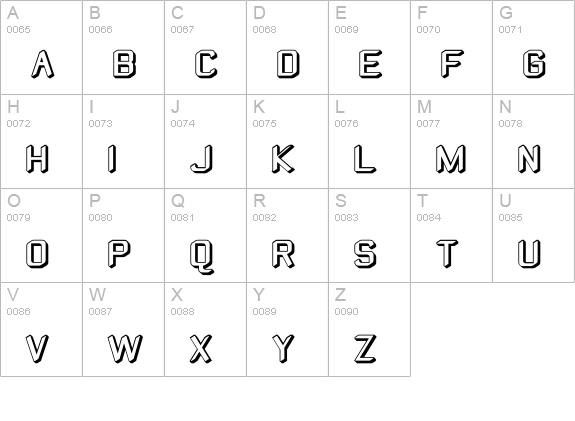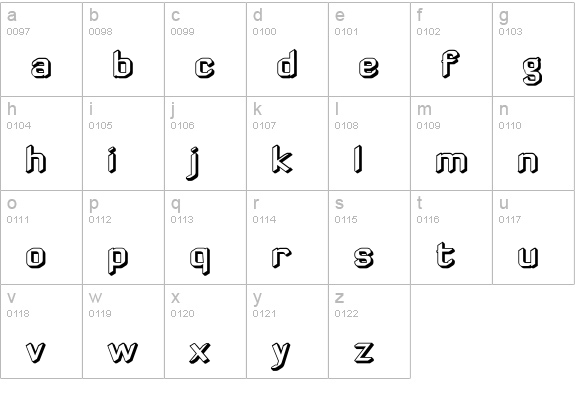
ZyphyteOffset Font Details
ZyphyteOffset font is a captivating and versatile typeface that exudes modern elegance and sophistication. With its unique design featuring sleek lines and subtle curves, ZyphyteOffset is perfect for adding a touch of style to any project. Whether you're working on a logo, website, or print design, this font will surely make a lasting impression. What sets ZyphyteOffset apart is its seamless blend of contemporary aesthetics and timeless appeal. Its clean and crisp letterforms are easy to read yet possess a distinct flair that sets it apart from other fonts. Whether used for headlines, body text, or any other design element, ZyphyteOffset delivers a polished and professional look that will elevate your work to the next level. The best part? ZyphyteOffset is completely free to download at FontsMarket.com. This means you can easily access this stunning font and incorporate it into your projects without any cost. So why wait? Give your designs a fresh and modern edge with ZyphyteOffset font today!